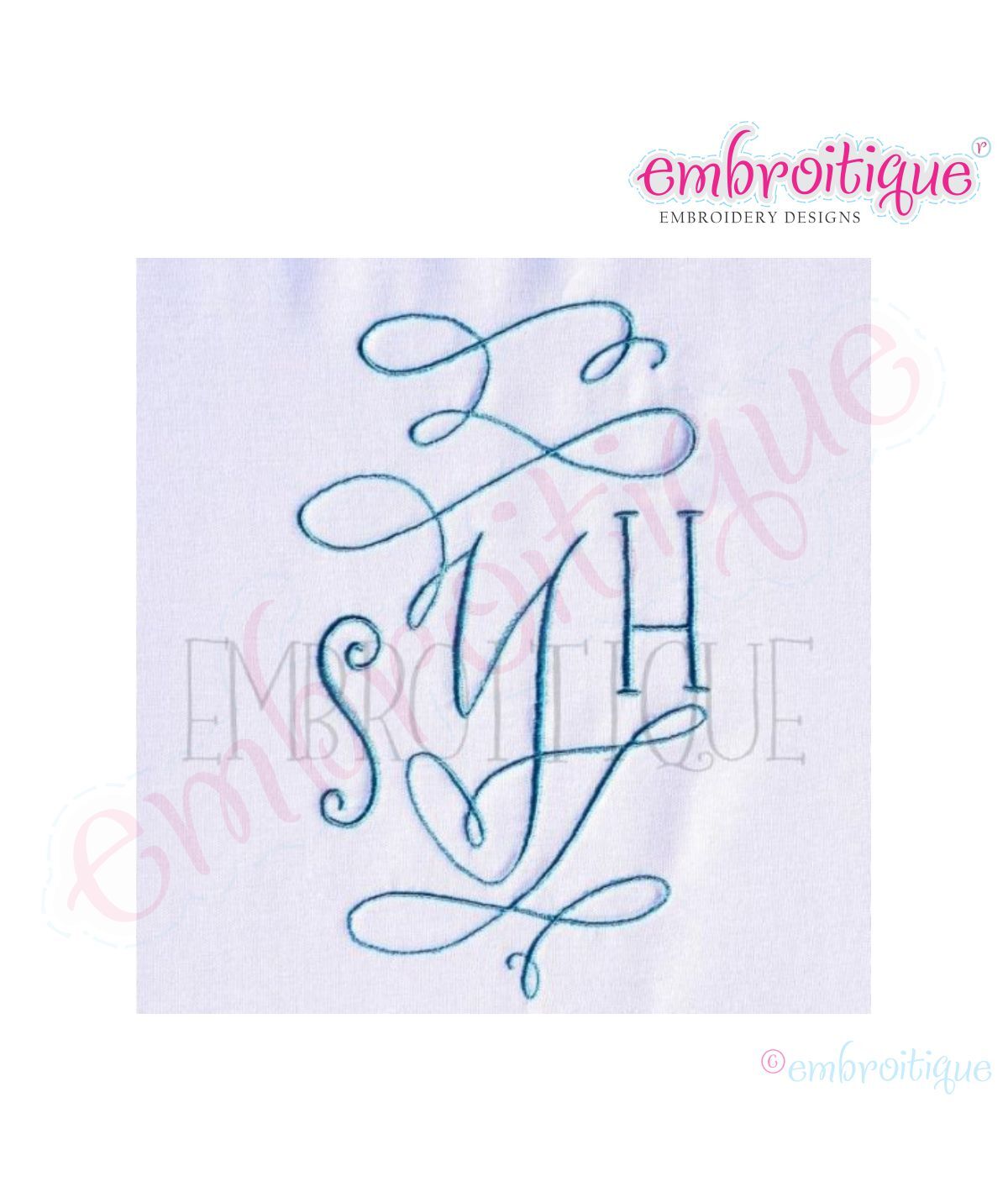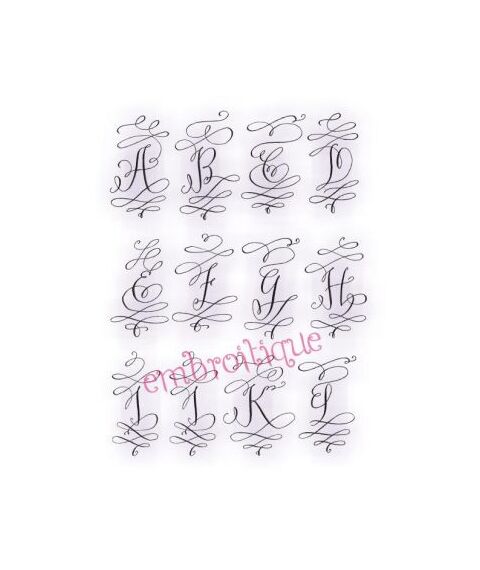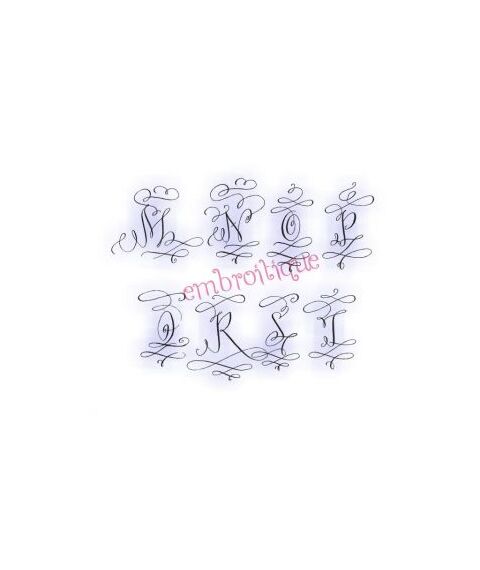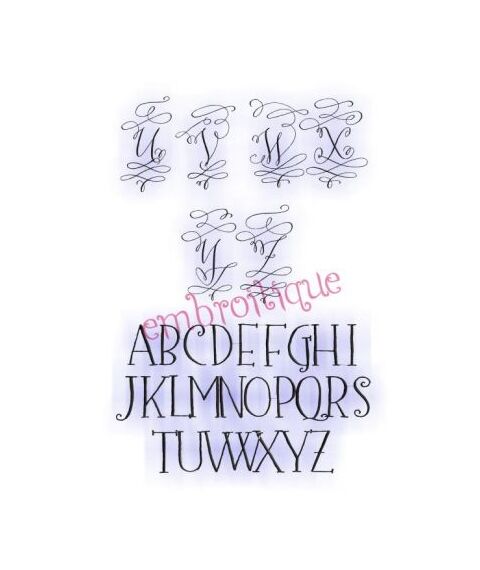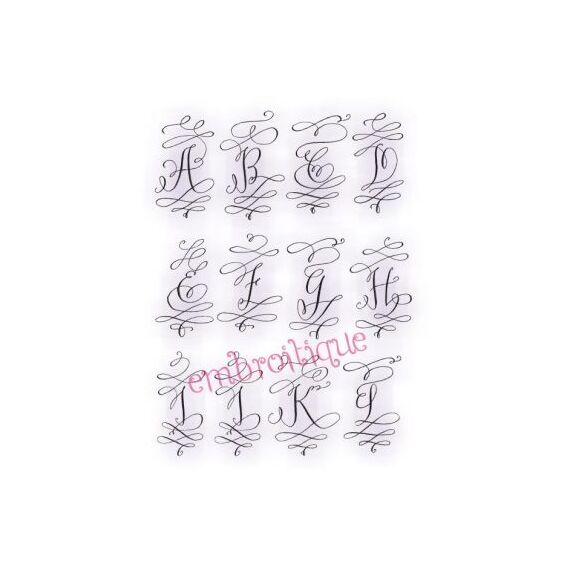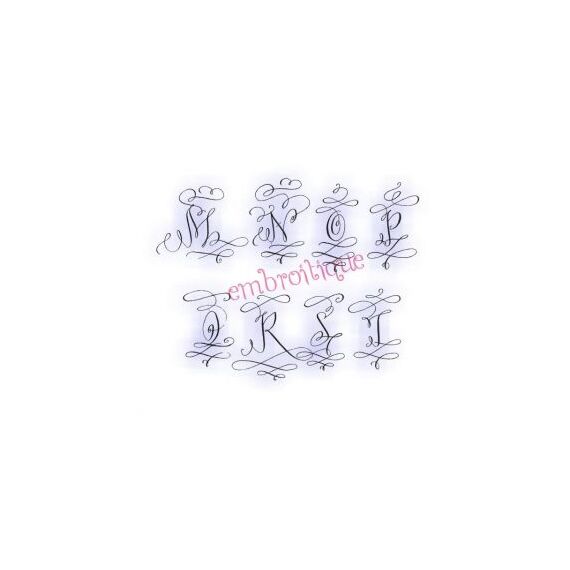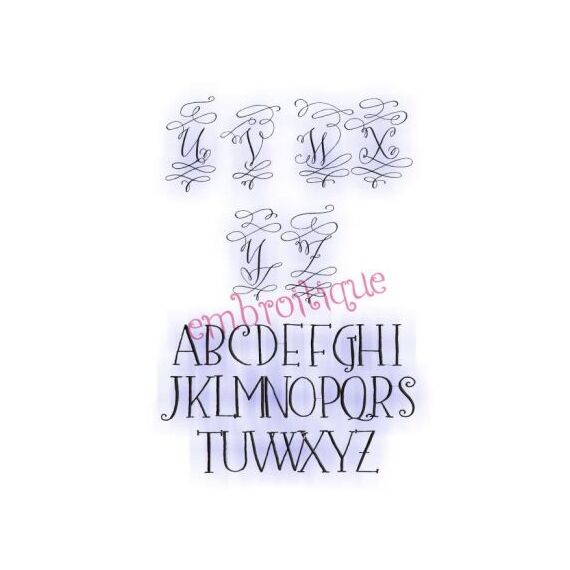
Courtly Calligraphy Stunning Ornamental Monogram Set
All of the swirled letters (A-Z) come in 4x4, 5x7, & 6x10 sizes with the plain letters in coordinating sizes for each hoop.